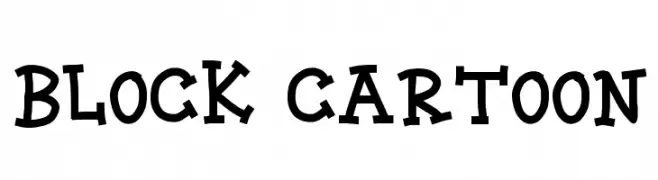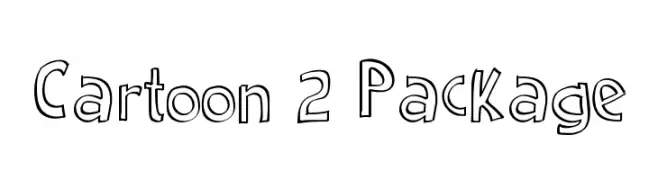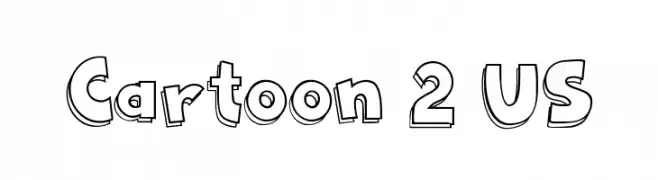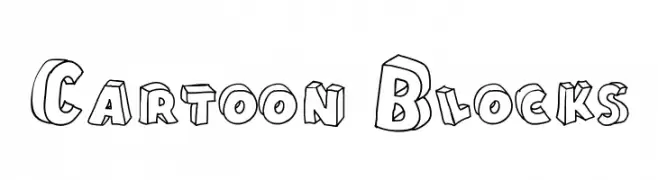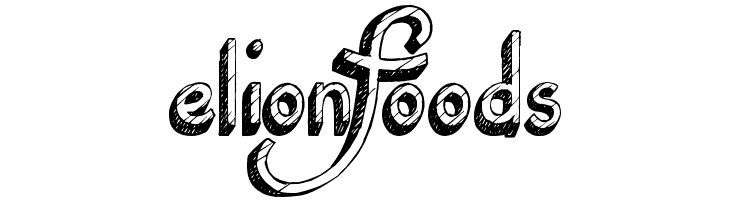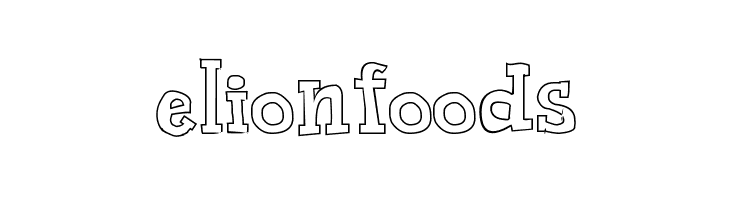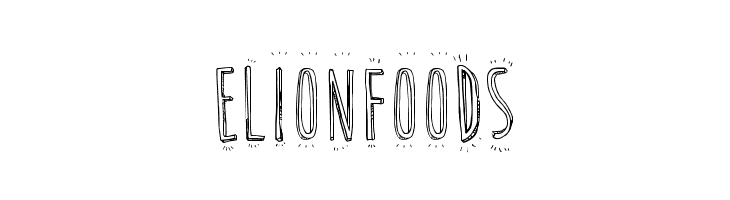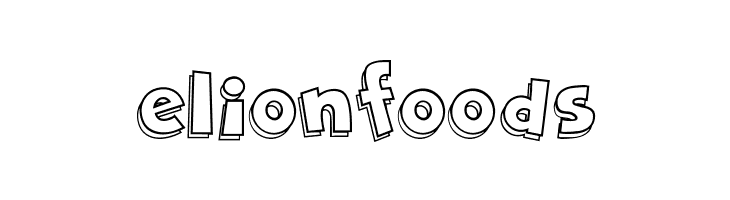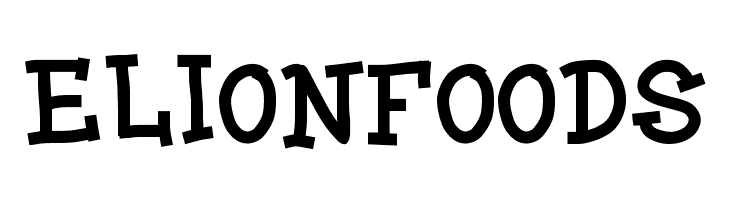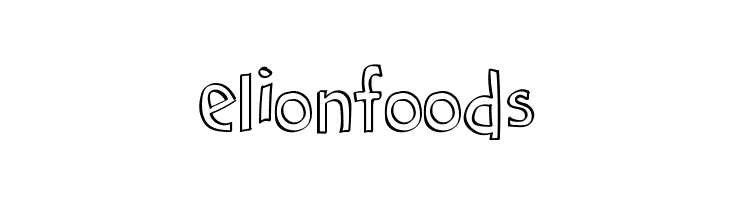
Cartoon animal dingbat font with unique characters for each glyph.
A bold, cartoon-style font with playful shadows and dynamic shapes.
A bold, italicized font with a playful, cartoonish style.
A playful, cartoonish block font with festive snow accents.
A lively and whimsical font with exaggerated strokes and playful character design.
A playful, hand-drawn font with bold, rounded characters and a whimsical style.
A playful, bold, hand-drawn font with a cartoonish, energetic style.
A playful, bold font with a bubbly, cartoonish style.
A playful, hand-drawn font with a whimsical, cartoonish style.
A playful, dotted inline font with a whimsical cartoonish style.
A playful, bamboo-inspired font with a hand-drawn, cartoonish style.
A playful, bold font with rounded, bubbly characters and a hand-drawn feel.
A playful, cartoonish font with rounded edges and a hand-drawn style.
A playful, cartoon-like font with rounded, hand-drawn characters.
A bold, cartoonish font with rounded, playful characters.
A playful, bold font with a hand-drawn, cartoon-like style.
A playful, hand-drawn font with bold, rounded characters.
A bold, playful font with a cartoon-like, rounded style.
A playful, hand-drawn font with bold, rounded characters and a whimsical style.
A playful, hand-drawn font with a doodle-like, cartoonish style.
A playful, hand-drawn font with a cartoonish and whimsical style.
A playful, decorative font with cartoon-like patterns and bold characters.
A bold, playful font with rounded characters and a shadow effect, perfect for fun designs.
A playful, bold font with cartoonish, exaggerated letterforms.
A playful, hand-drawn font with a cartoonish and whimsical style.
A bold, playful font with rounded, cartoon-like characters and a hand-drawn feel.
A bold, rounded typeface with a playful and friendly style.
A playful, hollow cartoon-style font with outlined characters.
A playful, rounded font with a bold and friendly appearance.
A playful, bold font with cartoonish, rounded characters and thick outlines.
A playful, hand-drawn font with a cartoonish and whimsical style.
A bold, playful font with a whimsical, cartoonish style.
A playful, bold font with rounded, bubbly characters perfect for fun designs.
A playful, bold font with rounded, cartoonish strokes and a whimsical style.
A playful, hand-drawn font with a cartoon-like, italicized style.